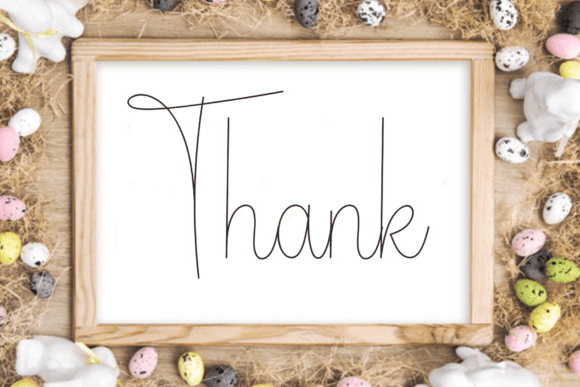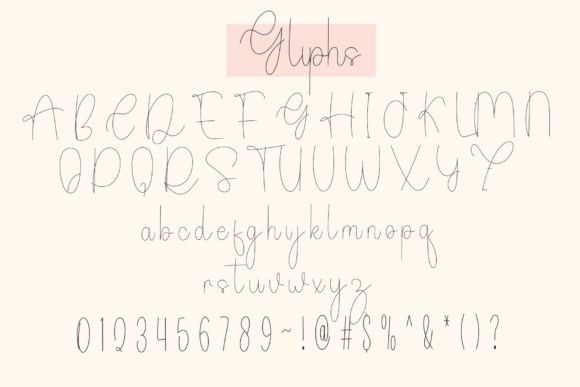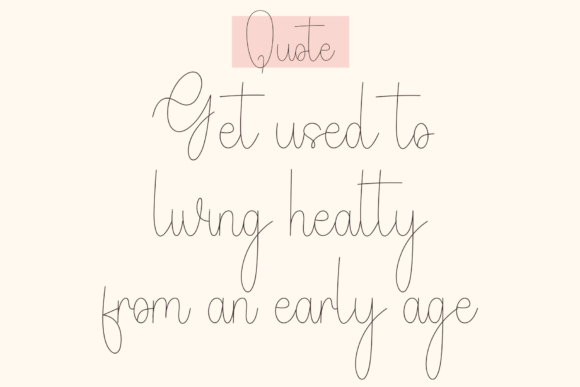
Introduction to Signature Beautiful Font
As a designer, have you ever been stuck on the perfect font to elevate your personal brand? You’ve poured your heart and soul into a creative project, and the right typography is the final touch that sets it apart. For me, that moment came when I discovered the Signature Beautiful Font – a stunning, ultra-slim script typeface that exudes “chic-and-effortless” sophistication.
With its elongated, monolinear letterforms and sweeping ascenders, Signature Beautiful Font is more than just a design resource – it’s a statement piece that adds a touch of high-end fashion to your work. Whether you’re a photographer, interior designer, or stationery enthusiast, this font is the perfect choice for creating a lasting impression. And the best part? It’s available for free download, making it an accessible and valuable addition to your design toolkit.
Key Features of Signature Beautiful Font
- Unique and elegant design, perfect for creative projects and personal branding.
- High-quality font with a transparent background, allowing for maximum flexibility in design composition.
- Designed with precision and attention to detail, ensuring crisp and clear text at resolutions up to 300 DPI.
- Perfect for use in logos, typography-based designs, and other creative projects where a beautiful and unique font is required.
Honest Review: Signature Beautiful Font
As a designer, I’m always on the lookout for high-quality fonts that can elevate my creative projects. The Signature Beautiful Font is a great addition to my design resource library, and I’m excited to share my thoughts on it.
- The font is incredibly versatile and can be used for a wide range of creative projects, from invitations to business cards.
- The transparent background feature allows for seamless integration with any design element.
I’ve been using the Signature Beautiful Font for a few weeks now, and I’m impressed with its high quality and ease of use. It’s a great addition to any design library and can help take your projects to the next level.
- The font may not be suitable for all design styles, particularly those that require a more minimalist or modern aesthetic.
- The font can be a bit too ornate for some designs, which may detract from the overall message.
Overall, I’m very impressed with the Signature Beautiful Font. It’s a high-quality design resource that can help take your creative projects to the next level. With its versatility, transparent background feature, and free download option, it’s an excellent choice for designers of all levels.
Signature Beautiful Font
The Signature Beautiful Font is a high-quality, free design resource perfect for creative projects. This versatile font is ideal for adding a touch of elegance to your designs, with a transparent background that allows for seamless integration with any background image.
Tips for Getting the Most Out of it
Experiment with different font sizes, colors, and styles to create unique and eye-catching designs. Use the transparent background to create a sense of depth and dimensionality in your designs.
The Signature Beautiful Font is perfect for a variety of creative projects, including wedding invitations, business cards, and product packaging. It’s also great for adding a touch of elegance to social media graphics, blog posts, and website headers.